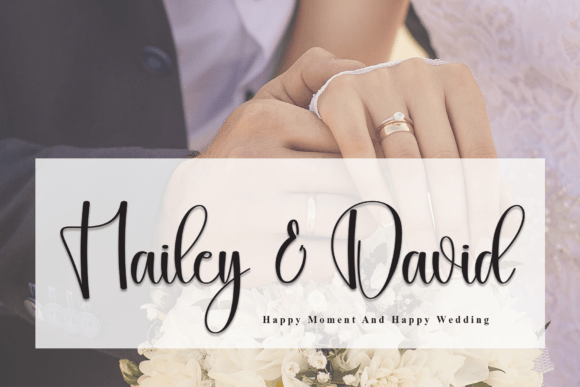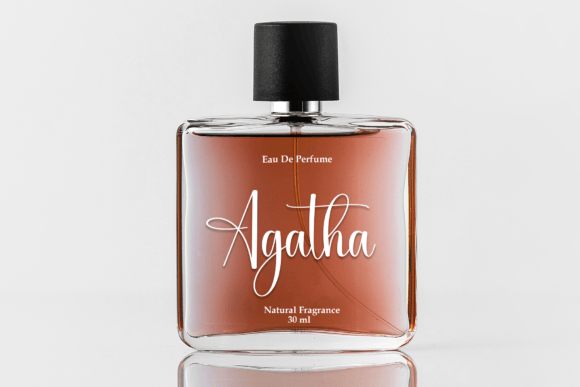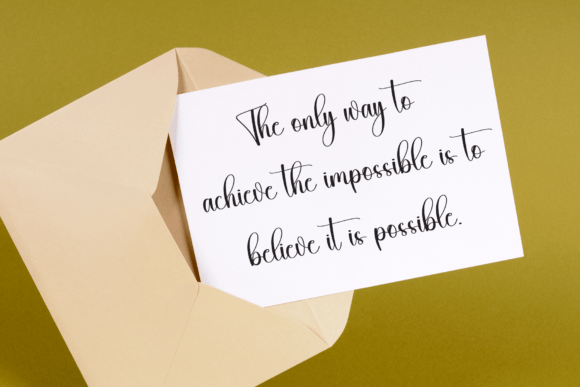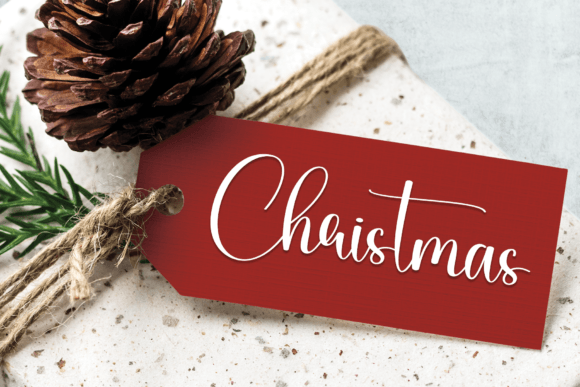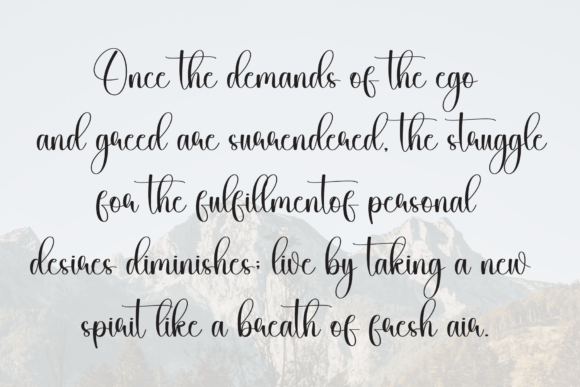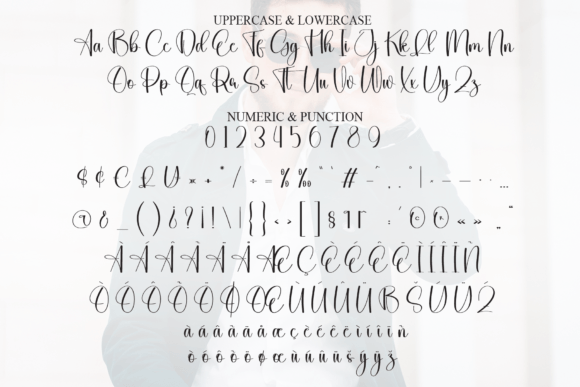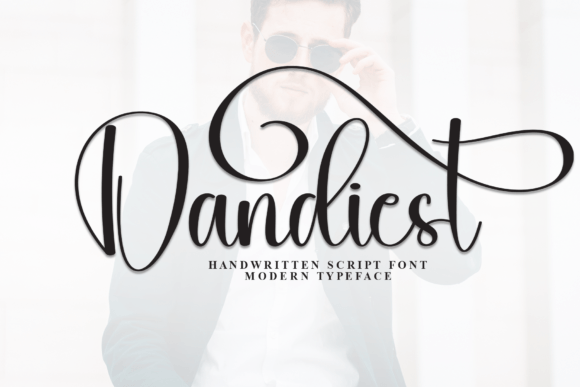
Dandiest Font: Elevate Your Designs with Elegance and Charm
In the world of typography, few fonts manage to capture the essence of elegance and charm as effortlessly as the Dandiest Font. This stylish handwritten script font has been making waves in the design community, and for good reason. Its flowing, graceful curves and delicate strokes bring a level of sophistication and warmth to any project, making it a go-to choice for designers and crafters alike.
The Characteristics of Dandiest Font
So, what sets the Dandiest Font apart from other script fonts on the market? For starters, its unique blend of classic and modern elements creates a timeless look that’s both nostalgic and contemporary. The font’s flowing curves and swirling tails add a touch of drama and flair, while its delicate strokes and subtle variations in line width bring a sense of human touch and personality.
Perfect for Invitations, Logos, and Branding
One of the key strengths of the Dandiest Font is its versatility. Whether you’re designing an invitation, logo, or branding materials, this font is sure to make a statement. Its elegant and refined appearance makes it perfect for high-end events, luxury brands, and sophisticated designs. At the same time, its playful and whimsical undertones ensure that it remains approachable and engaging.
Adding a Personal Touch to Your Designs
In an era of digital design, it’s easy to lose sight of the personal touch that makes a project truly special. The Dandiest Font is here to change that. Its handcrafted nature and unique character variations ensure that every word, every sentence, and every paragraph is infused with a sense of personality and warmth. Whether you’re designing for a client or working on a personal project, this font is sure to bring a smile to your face and a touch of magic to your designs.
Why Designers and Crafters Love Dandiest Font
So, why have designers and crafters fallen in love with the Dandiest Font? For one, its exceptional versatility makes it suitable for a wide range of projects and applications. Additionally, its elegant and refined appearance ensures that it pairs well with a variety of design styles and aesthetics. Finally, the font’s delicate strokes and subtle variations in line width bring a level of sophistication and polish that’s hard to find in other script fonts.
Tips for Using Dandiest Font in Your Designs
Ready to incorporate the Dandiest Font into your next project? Here are a few tips to get you started:
• Pair it with contrasting fonts: To create visual interest and add depth to your designs, try pairing the Dandiest Font with contrasting fonts that offer a different texture or style.
• Experiment with colors and textures: Don’t be afraid to get creative with colors and textures when using the Dandiest Font. Its elegant appearance pairs well with a range of hues and patterns, from soft pastels to rich jewel tones.
• Use it sparingly: While the Dandiest Font is undoubtedly beautiful, it’s also a statement font. Use it sparingly to add emphasis and create visual interest, rather than overwhelming your design with too much script.
In conclusion, the Dandiest Font is a game-changer for designers and crafters looking to elevate their projects with elegance and charm. Its unique blend of classic and modern elements, flowing curves, and delicate strokes make it a versatile and sophisticated choice for a wide range of applications. Whether you’re designing invitations, logos, or branding materials, this font is sure to bring a touch of personality and warmth to your work.
Get Ready to Fall in Love with Dandiest Font
Ready to experience the magic of the Dandiest Font for yourself? With its exceptional versatility, elegant appearance, and personal touch, it’s no wonder that this font has captured the hearts of designers and crafters everywhere. So why wait? Dive in, explore the possibilities, and discover the beauty and charm of the Dandiest Font for yourself.